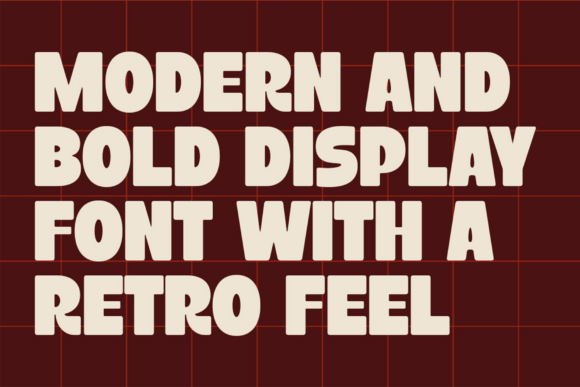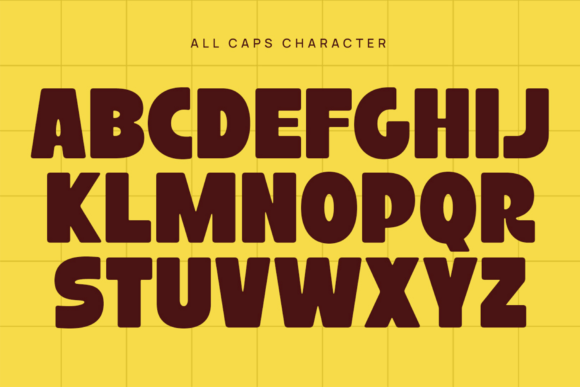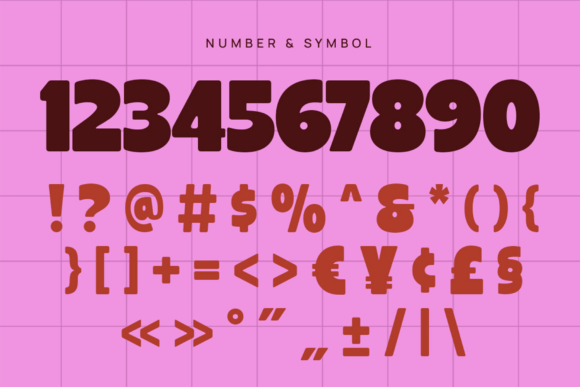
Introduction to Poris Font
Have you ever been scrolling through your social media feed and come across a bold, eye-catching logo that instantly grabs your attention? For designers, creating that ‘wow’ moment is what it’s all about. And, if you’re looking for a font that can deliver just that, you’re in luck! Say hello to the Poris Font, a modern and bold all caps display typeface that’s packed with personality and a strong retro vibe.
Whether you’re building a retro-inspired visual or creating bold modern branding, the Poris Font is the perfect design resource for you. Its chunky letterforms and smooth curves make every word feel powerful, fun, and highly memorable. With multilingual support and a transparent background, this high-quality font is perfect for logos, branding, packaging, posters, marketing campaigns, social media content, food and beverage design, merchandise, and promotional materials.
Honest Review: Poris Font
I recently had the chance to work with the Poris Font, and I must say it’s a great addition to any creative project. This free download is a fantastic design resource that offers a high quality, modern look.
- ✨ Clean and sleek design aesthetic
- ✨ High-quality font files for seamless integration
- ✨ Transparent background makes it easy to customize
- ✨ Excellent for digital designs, including website headers and social media graphics
- ⚠️ Limited character set may not be suitable for extended text blocks
- ⚠️ Not ideal for print designs due to its digital origins
Overall, I’m impressed with the Poris Font. While it may not be perfect for every project, it’s a great option for digital designs where a modern, high-quality font is needed. With a free download and transparent background, it’s a fantastic design resource to have in your toolkit.
Common Use Cases for Poris Font
The Poris Font is perfect for creating high-quality designs with a transparent background. You can use it for logos, business cards, brochures, and other marketing materials.